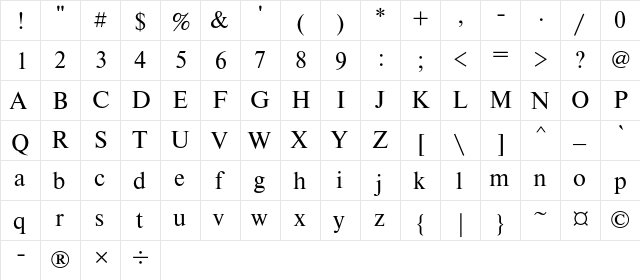
NewtonAm Regular
Design Context for NewtonAm Typeface
NewtonAm offers clean, dependable letterforms without strong stylistic allegiance, making it a practical choice for designers who need flexibility.